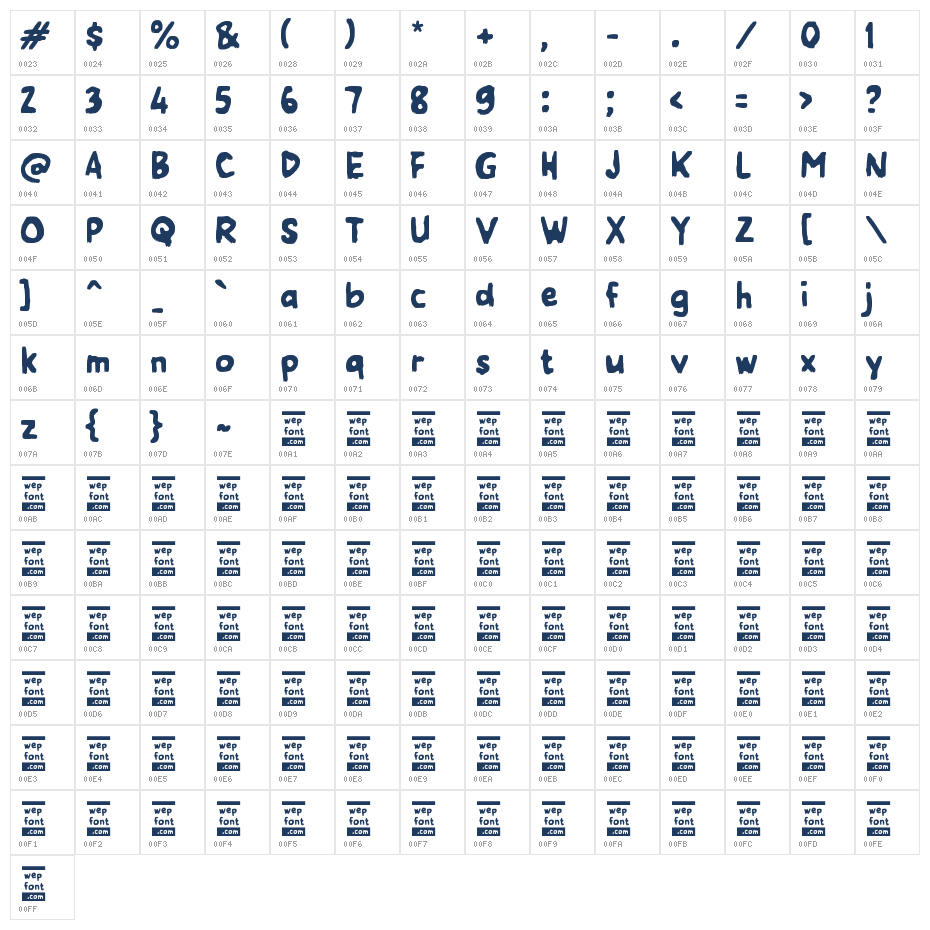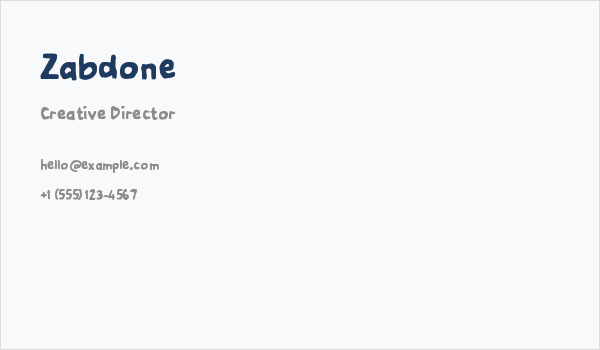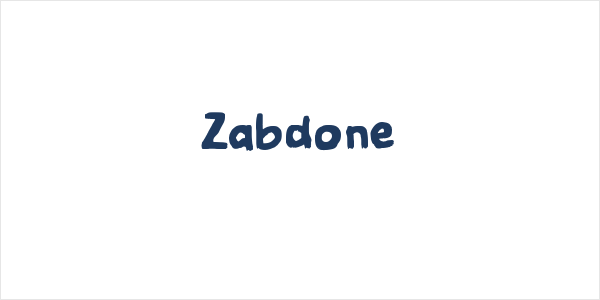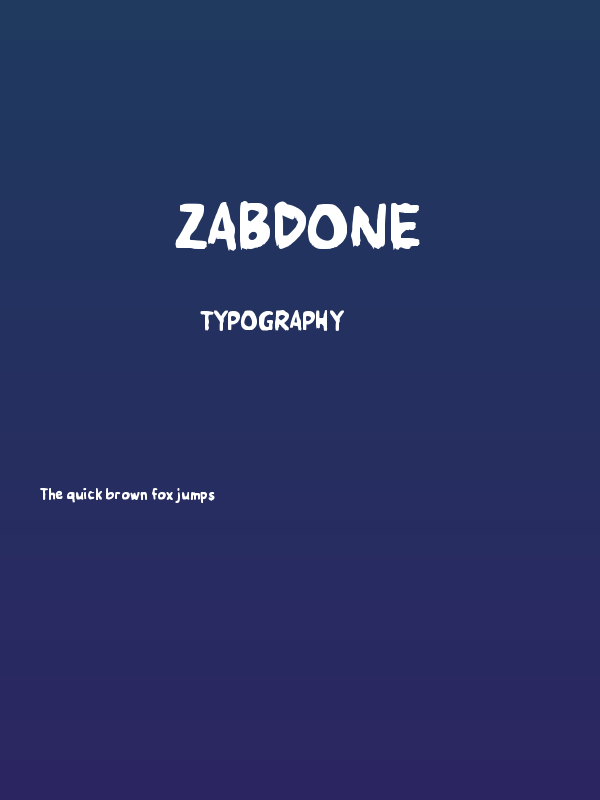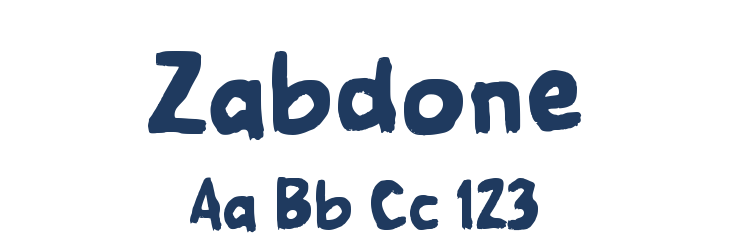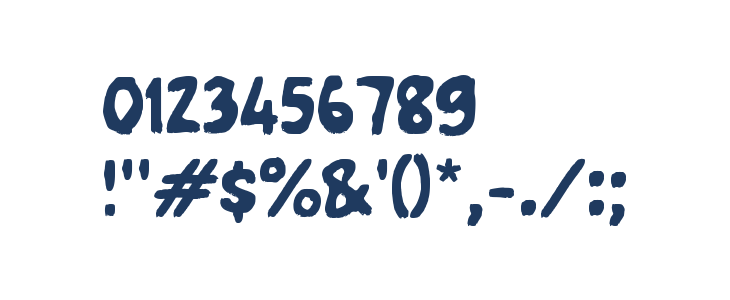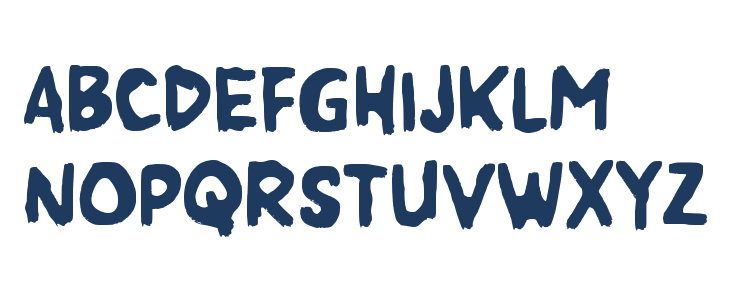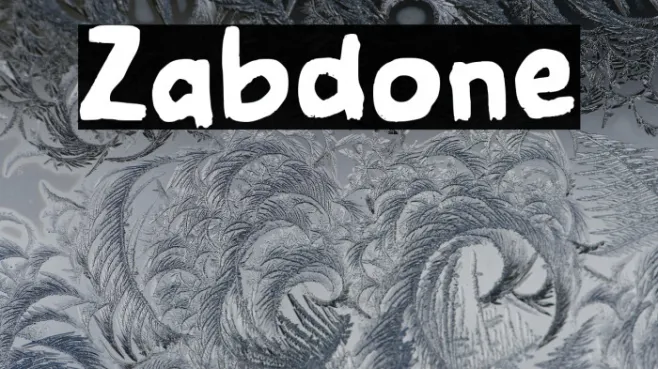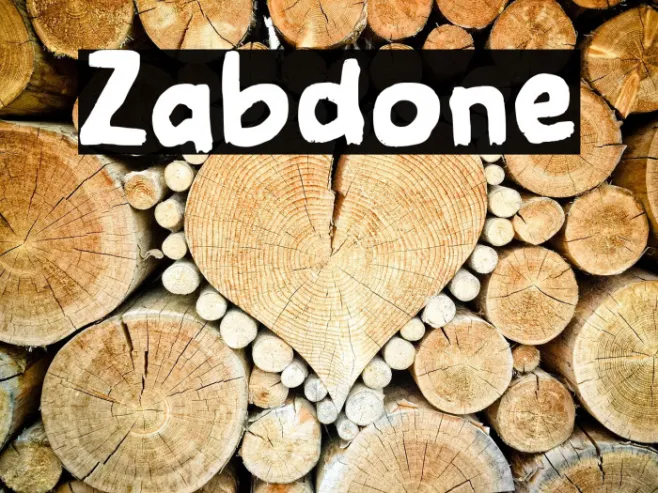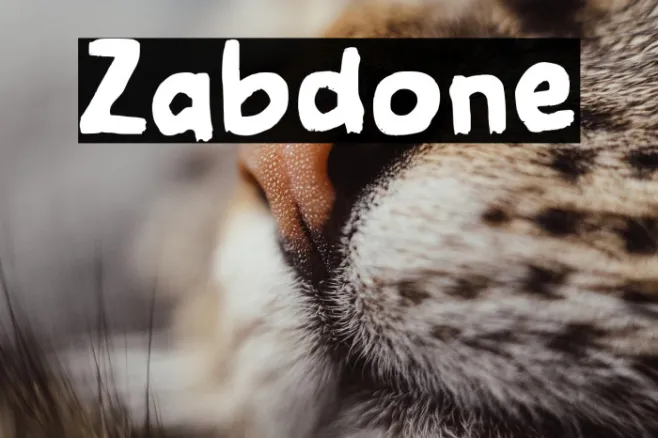
Zabdone Font
Zabdone Description
Playful, bold, handwritten style font with irregular, rounded characters.
| Use Case | Headlines, Posters, Children's materials, Informal branding |